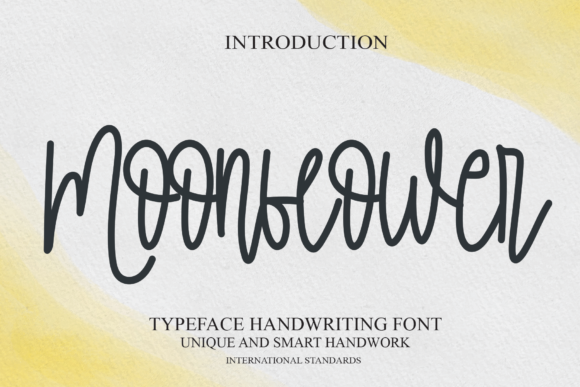
About Moonflower Font
Moonflower is a lovely and timeless handwritten font. It is the best choice for creating eye catching logos, branding and quotes. Every letter has a unique and beautiful touch, which will make your design come alive!